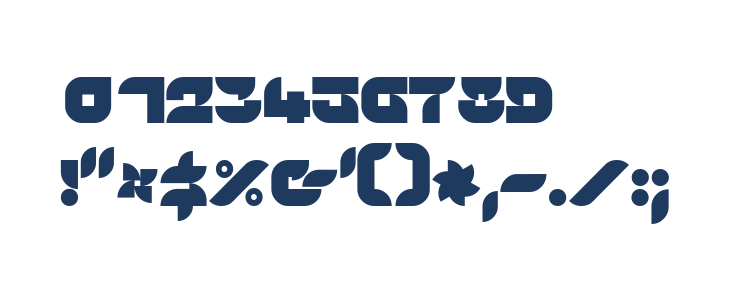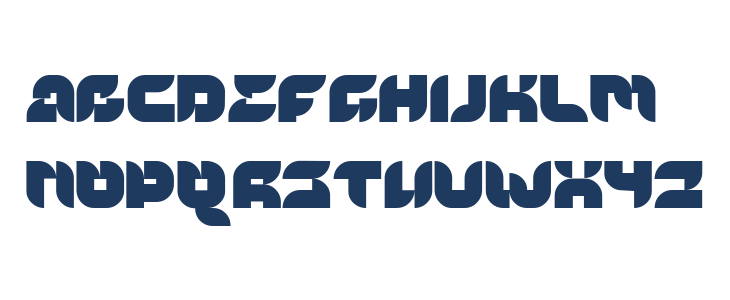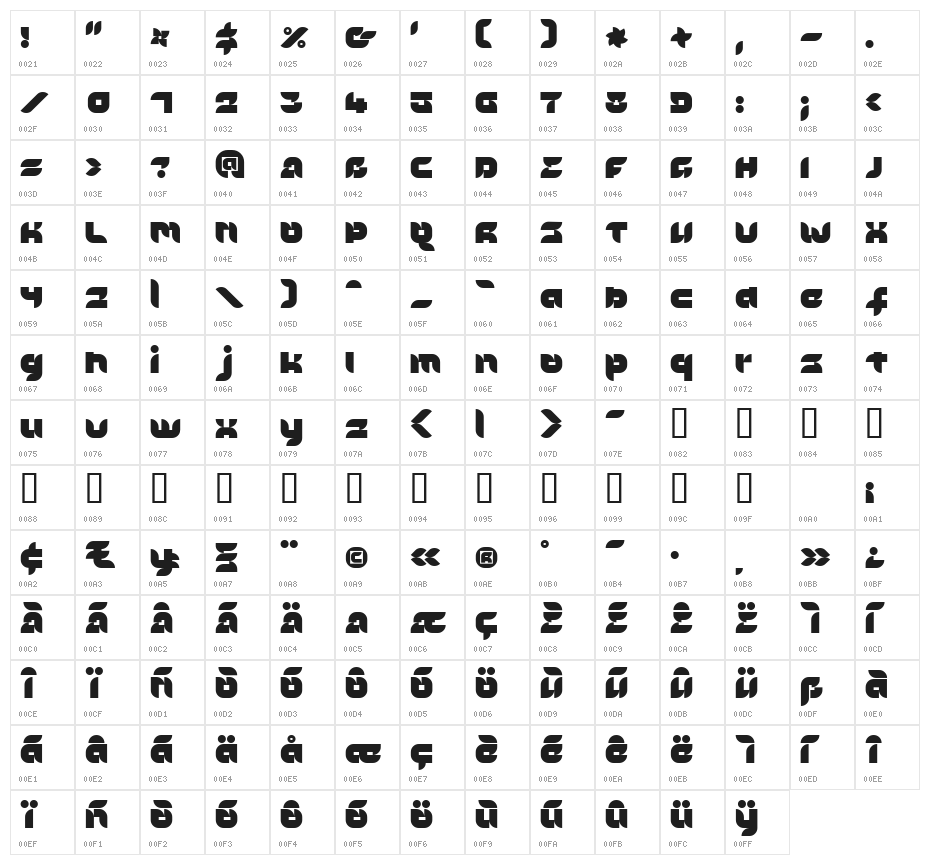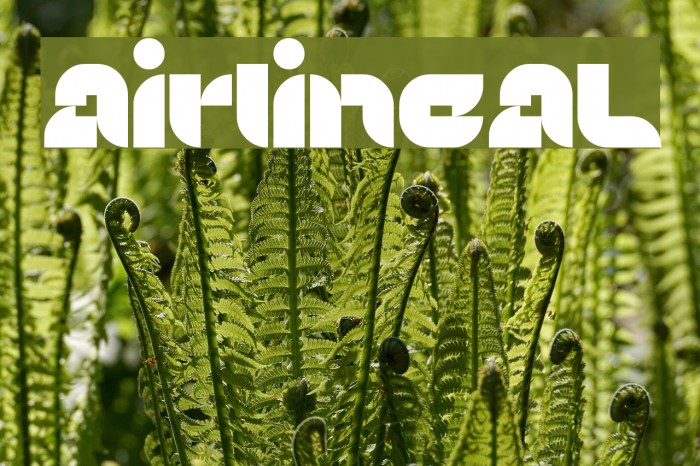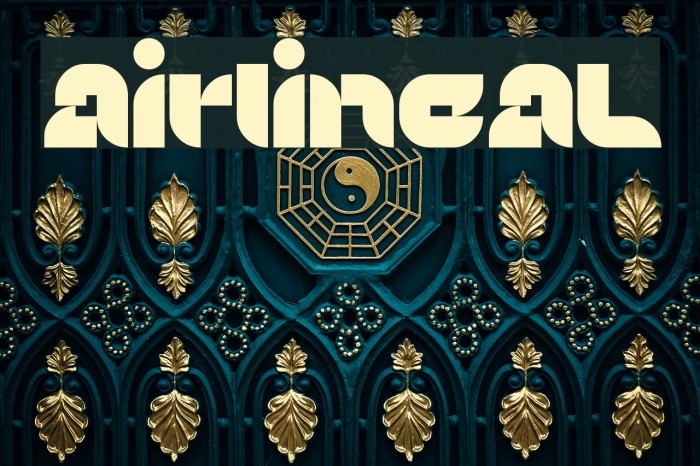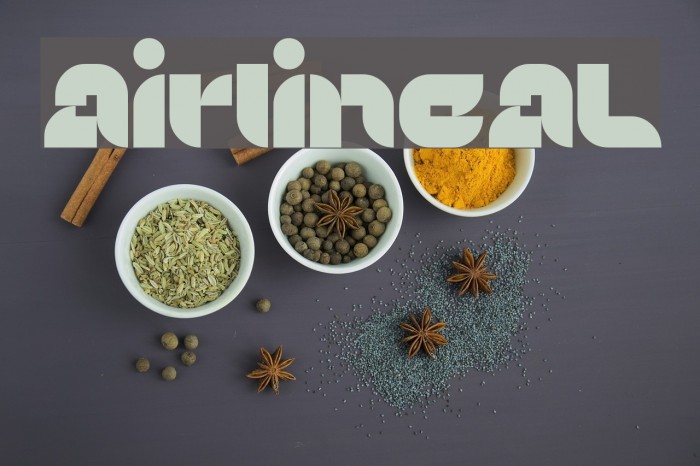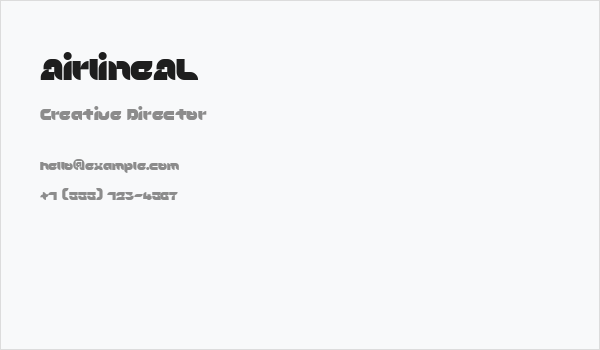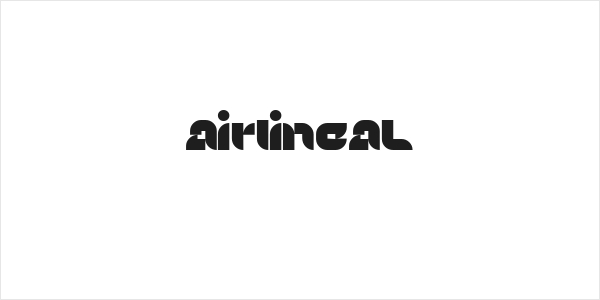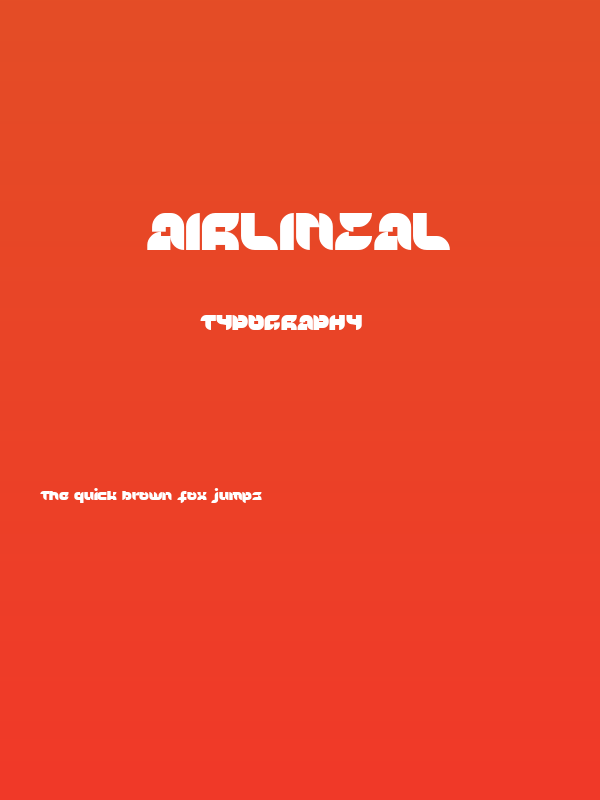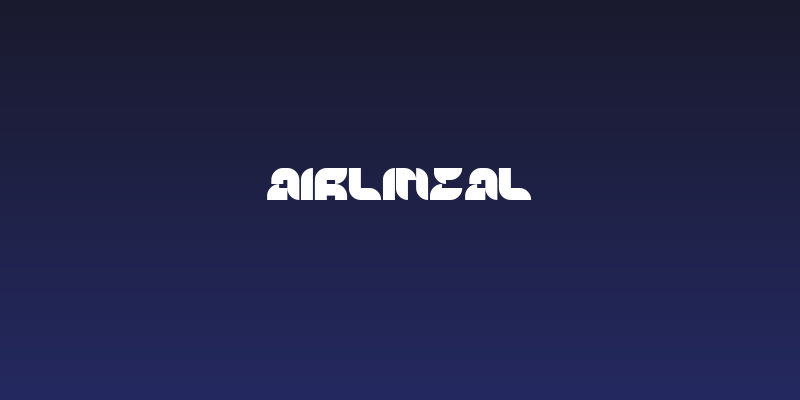
AirlineAL Font
AirlineAL Description
This font features a bold, geometric style with a futuristic and modern aesthetic. The characters are constructed with thick, solid strokes and have a distinct blocky appearance. The design incorporates sharp angles and curves, creating a unique and eye-catching look. The uppercase and lowercase letters maintain a consistent style, while the numerals and special characters complement the overall design. This font is highly stylized, making it suitable for projects that require a strong visual impact.
| Proposed Projects | Ideal for branding, posters, headlines, and any design that requires a strong, modern aesthetic. |